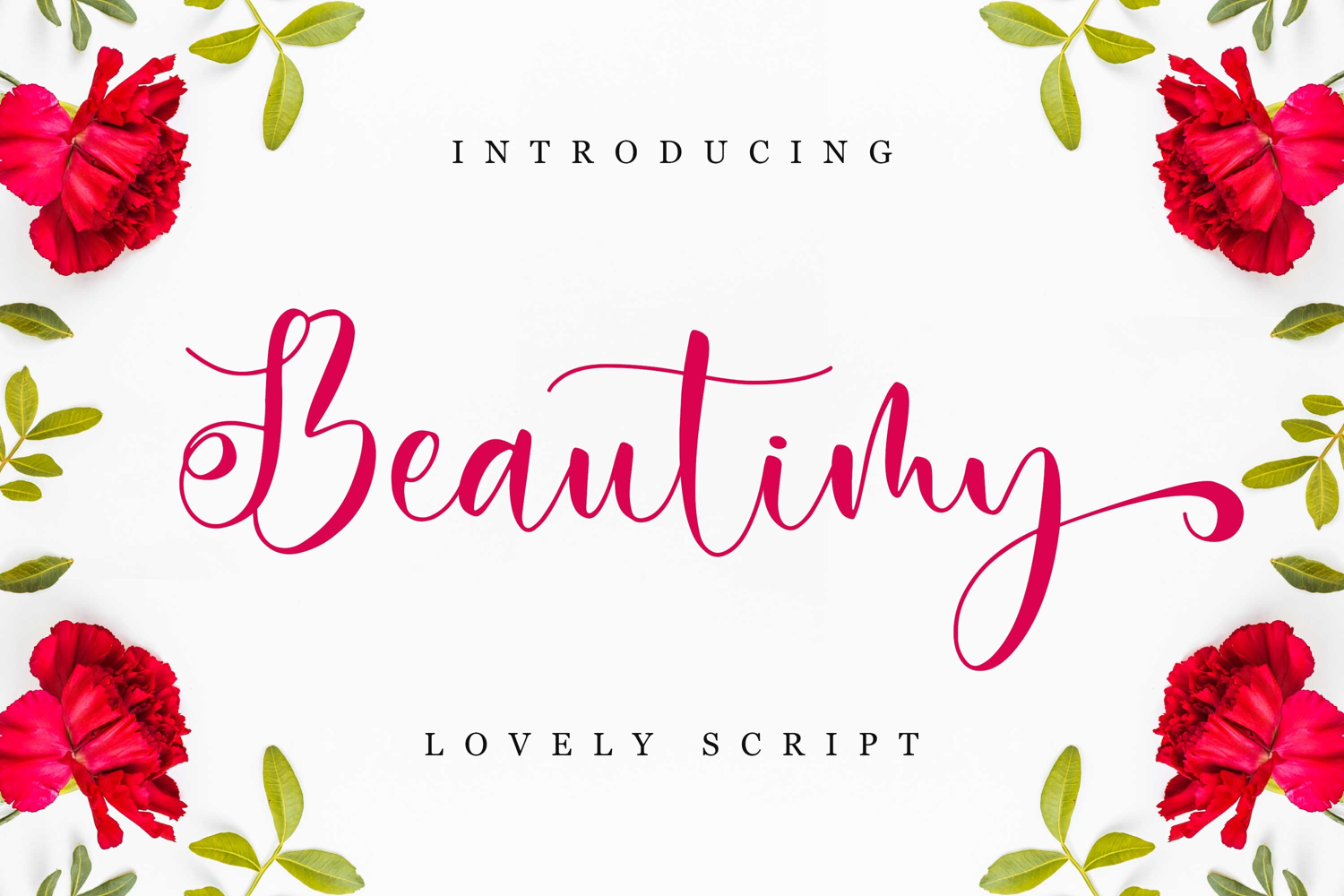
Beautimy - Lovely Script
Beautimy – Lovely Script font with a natural handwritten feel. It has sweety swash that are perfect for any creative design. This handmade font will make your design has a beautiful natural touch for each details. It is perfect for any design project as Invitation,logo, book cover, craft or any design purposes. This font is PUA encoded which means you can access all of the magical glyphs and swashes with ease! It also features a wealth of special features including alternate glyphs and ligatures.